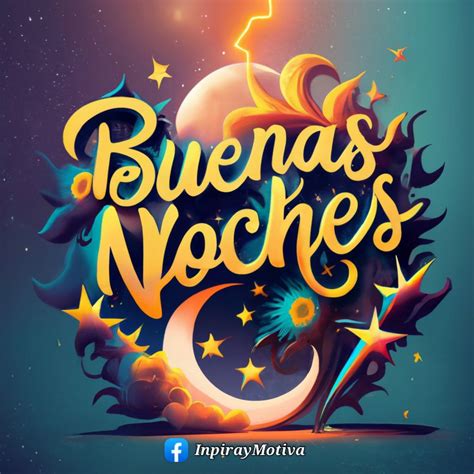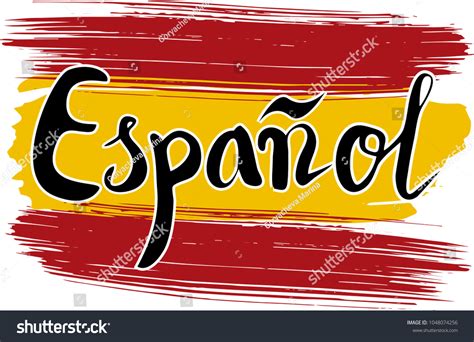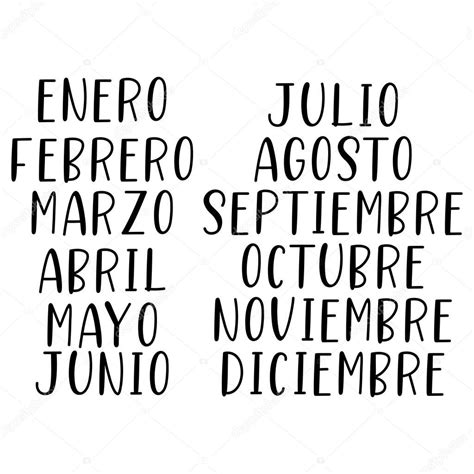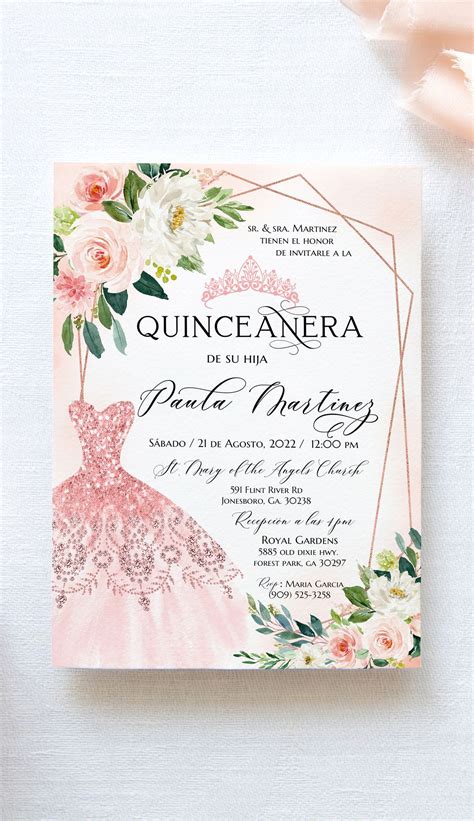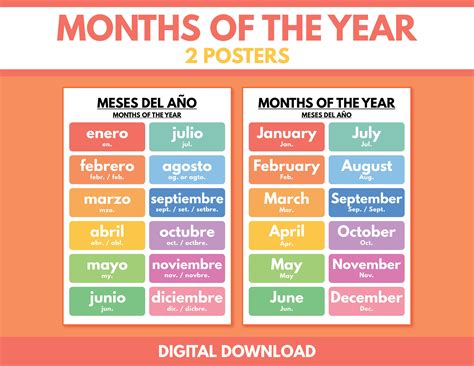
Typography is a fundamental aspect of design, and choosing the right font in Spanish can significantly enhance the visual appeal and readability of your projects. Whether you're designing a website, creating a document, or developing a branding strategy, understanding the nuances of typography in Spanish can make a substantial difference. This post will delve into the intricacies of selecting and using fonts in Spanish, providing practical tips and insights to help you make informed decisions.
Understanding Typography in Spanish
Typography in Spanish involves more than just selecting a font; it encompasses the art of arranging type in a way that is both aesthetically pleasing and functionally effective. Spanish typography has its unique characteristics, influenced by the language's phonetics, grammar, and cultural context. Here are some key points to consider:
- Accents and Diacritics: Spanish uses a variety of accents and diacritics, such as the tilde (ñ) and acute accents (á, é, í, ó, ú). Ensure that the font you choose supports these characters to maintain readability and accuracy.
- Letter Spacing: Spanish text often requires slightly different letter spacing compared to English. Pay attention to kerning and tracking to avoid awkward gaps or overlaps between letters.
- Line Height: Proper line height (leading) is crucial for readability. Spanish text generally benefits from a slightly larger line height to accommodate the language's flow and rhythm.
Popular Fonts in Spanish
Selecting the right font is essential for effective communication in Spanish. Here are some popular fonts that are well-suited for Spanish typography:
- Arial: A widely used sans-serif font that is clean and modern. It supports all necessary accents and diacritics, making it a reliable choice for digital and print media.
- Times New Roman: A classic serif font that is highly readable and suitable for formal documents, books, and academic papers. It handles Spanish accents well and provides a traditional look.
- Helvetica: Another popular sans-serif font known for its simplicity and versatility. It is often used in branding and advertising due to its clean and professional appearance.
- Georgia: A serif font designed for screen readability. It is an excellent choice for websites and digital content, offering a balance between traditional and modern aesthetics.
- Verdana: A sans-serif font specifically designed for screen use. It has a large x-height and wide letterforms, making it highly readable on digital devices.
Choosing the Right Font for Your Project
Selecting the right font for your project involves considering several factors, including the purpose of the content, the target audience, and the medium of presentation. Here are some guidelines to help you make the best choice:
- Purpose of the Content: Different types of content require different fonts. For example, a formal document may benefit from a serif font like Times New Roman, while a modern website might look better with a sans-serif font like Arial or Helvetica.
- Target Audience: Consider the preferences and expectations of your target audience. For instance, a younger audience might appreciate a more contemporary font, while an older audience might prefer a classic, traditional font.
- Medium of Presentation: The medium through which your content will be presented can also influence your font choice. For print media, serif fonts are generally more readable, while for digital media, sans-serif fonts often perform better.
Here is a table to help you quickly compare some popular fonts in Spanish:
| Font Name | Type | Best For | Readability |
|---|---|---|---|
| Arial | Sans-Serif | Digital and Print Media | High |
| Times New Roman | Serif | Formal Documents, Books | High |
| Helvetica | Sans-Serif | Branding, Advertising | High |
| Georgia | Serif | Websites, Digital Content | High |
| Verdana | Sans-Serif | Digital Devices | High |
📝 Note: Always test your chosen font with a sample of your content to ensure it meets your readability and aesthetic requirements.
Typography Best Practices for Spanish
In addition to choosing the right font, there are several best practices to follow for effective Spanish typography:
- Use Consistent Fonts: Maintain consistency in your font choices throughout your project. Mixing too many fonts can create a disjointed and unprofessional appearance.
- Pay Attention to Size: Ensure that your font size is appropriate for the medium and purpose. For print media, a smaller font size (10-12 pt) is often sufficient, while for digital media, a larger size (14-16 pt) is recommended.
- Consider Contrast: Use contrasting fonts for headings and body text to create a clear hierarchy. For example, pair a bold, sans-serif font for headings with a more traditional serif font for body text.
- Avoid Overuse of Styles: Limit the use of bold, italic, and underlined text to emphasize important points. Overuse can make your content look cluttered and difficult to read.
Typography is a crucial aspect of design, and mastering it can significantly enhance the effectiveness of your projects. By understanding the unique characteristics of Spanish typography and following best practices, you can create visually appealing and highly readable content. Whether you’re designing a website, creating a document, or developing a branding strategy,